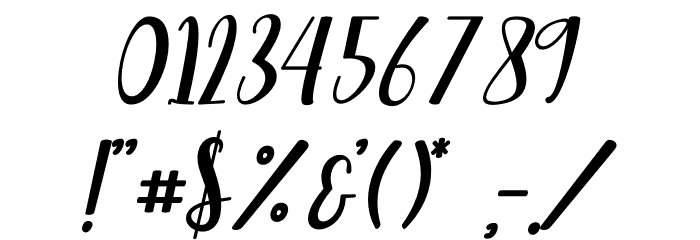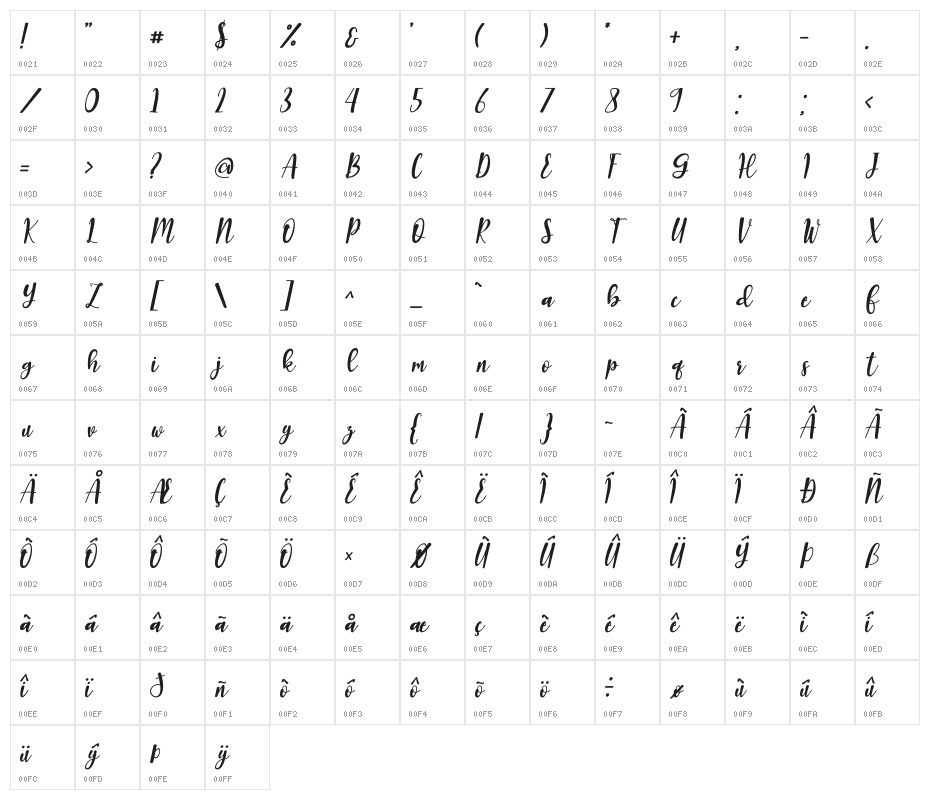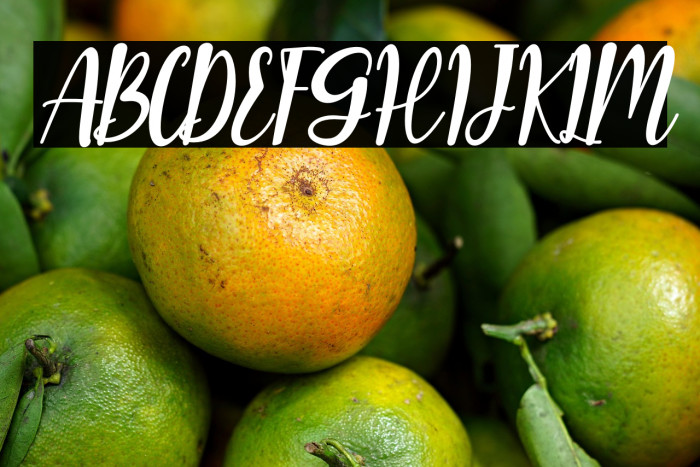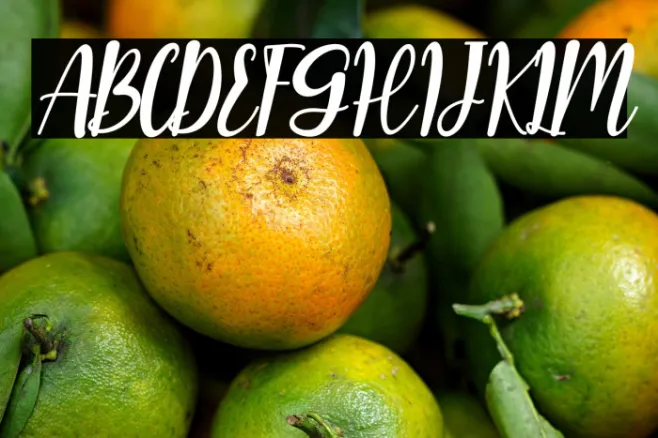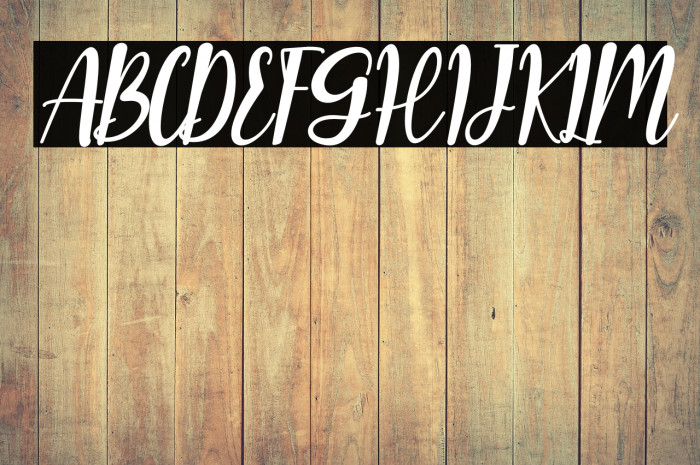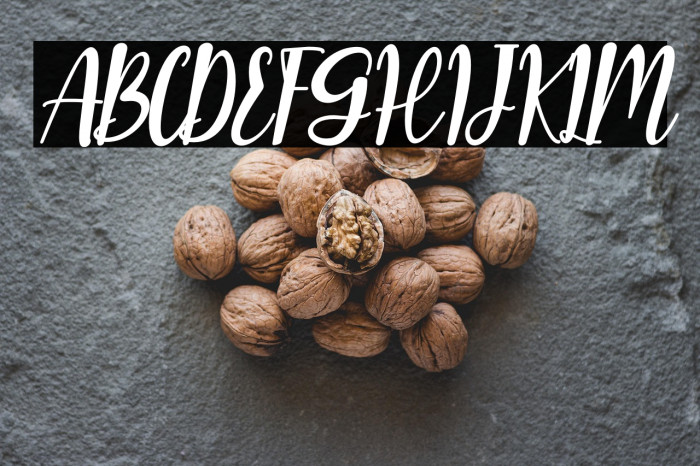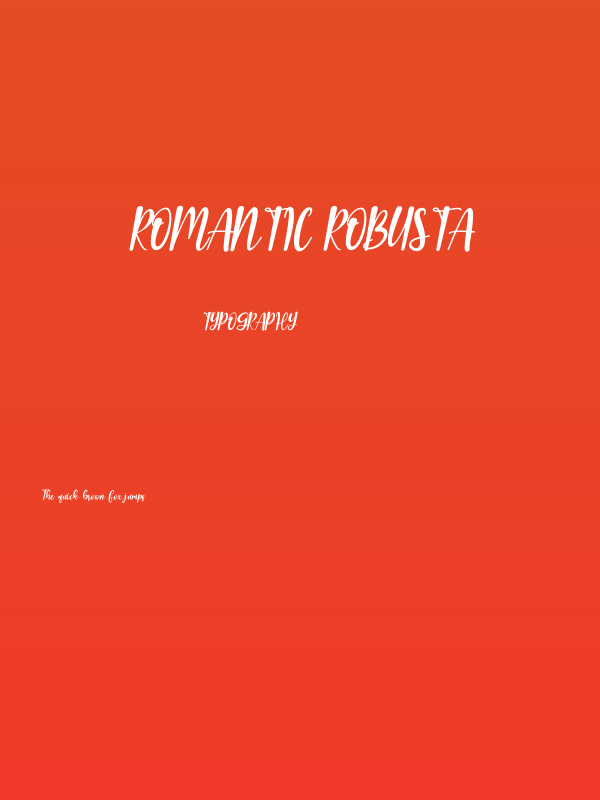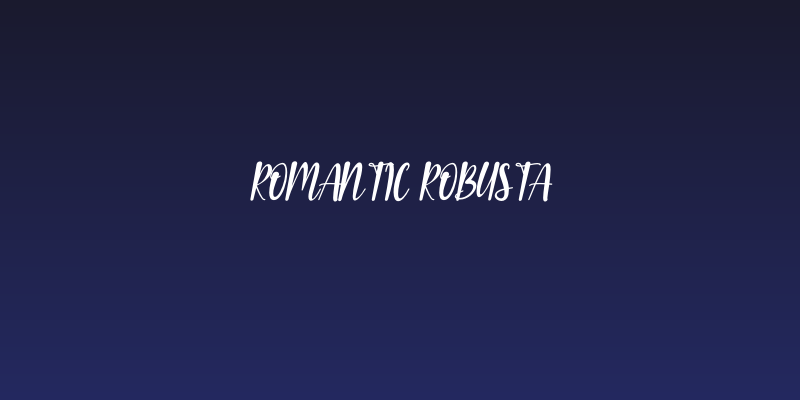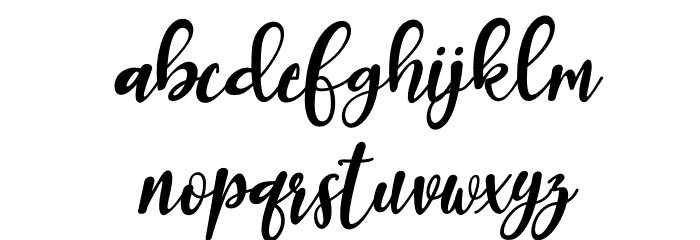
Romantic Robusta Font
Romantic Robusta Description
This font exudes a romantic and elegant flair, characterized by its flowing script style that mimics the fluidity of handwritten calligraphy. The uppercase letters are bold and sweeping, with dramatic flourishes that add a sense of movement and grace. The lowercase letters maintain a consistent style, offering a harmonious blend of curves and loops that enhance readability while retaining an artistic touch. Numbers and special characters are crafted with the same attention to detail, ensuring a cohesive look across all elements. The overall design is both sophisticated and approachable, making it suitable for a variety of creative applications.
| Overall Style | Romantic, Elegant |
| Proposed Projects | Ideal for wedding invitations, greeting cards, branding projects, and elegant packaging designs. |